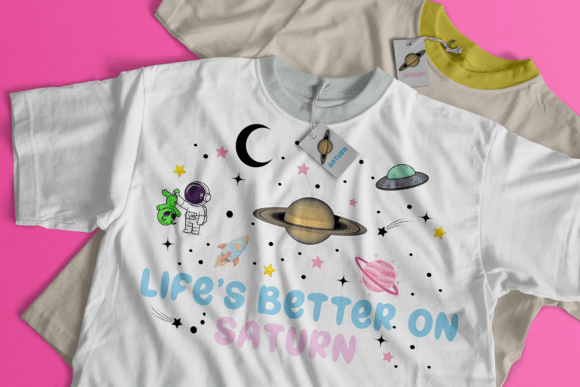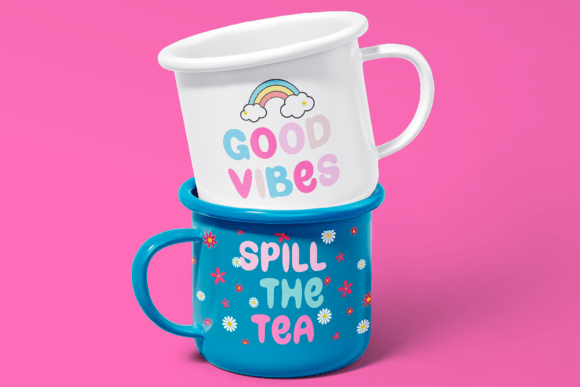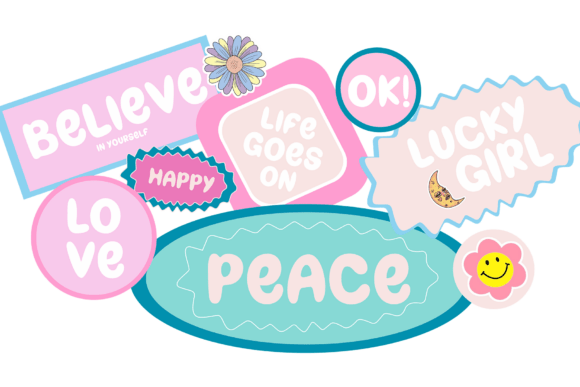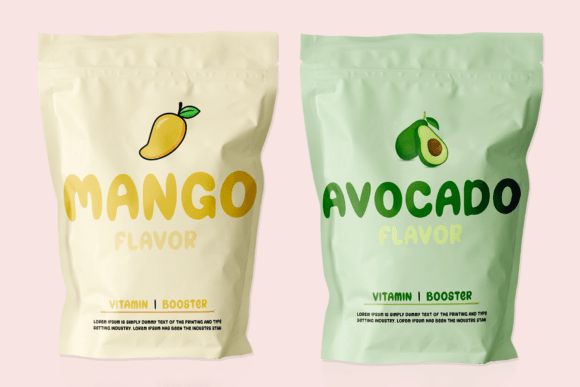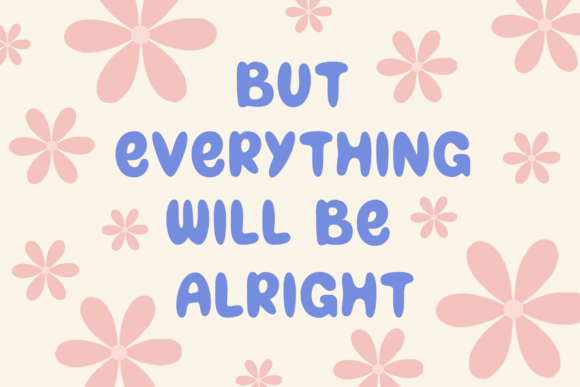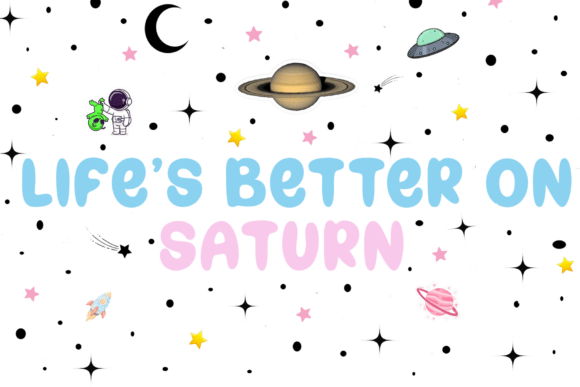
Bear Gummy Font: The Playful and Youthful Display Font
Are you looking for a font that radiates joy and youthful energy? Look no further than the Bear Gummy font! This delightful and high-impact fluffy display font is perfect for designers and crafters who want to add a playful touch to their projects. In this article, we’ll explore the features and benefits of the Bear Gummy font and how it can elevate your designs.
What is Bear Gummy Font?
Bear Gummy is a display font that mimics the playful and squishy nature of gummy candies. Its extra-thick, chunky letterforms and soft, bulbous terminals give it a smooth, organic flow with a cheerful “bubble” aesthetic. This font is perfect for designs that require a fun and approachable feel.
Key Features of Bear Gummy Font
- Uppercase and Lowercase Letters: The Bear Gummy font features both uppercase and lowercase letters, making it versatile for various design projects.
- Numerals and Functional Characters: The font includes numerals and functional characters, ensuring that you have everything you need to create professional-looking designs.
- Multilingual Support: Bear Gummy font supports multiple languages, making it a great choice for designers who work with international clients.
Use Cases for Bear Gummy Font
The Bear Gummy font is perfect for a wide range of design projects, including:
- Books and Magazines: Add a playful touch to your book or magazine covers with the Bear Gummy font.
- Logo and Branding: Create a fun and memorable brand identity with the Bear Gummy font.
- Photography: Use the Bear Gummy font to add a cheerful touch to your photo captions or quotes.
- Blog Headers: Make your blog stand out with a playful header using the Bear Gummy font.
- Posters and Advertisements: Grab attention with a bold and playful poster or advertisement featuring the Bear Gummy font.
Benefits of Using Bear Gummy Font
The Bear Gummy font offers several benefits to designers and crafters, including:
- Unique and Playful Design: The Bear Gummy font adds a touch of whimsy and fun to your designs.
- High-Impact Visibility: The font’s extra-thick letterforms ensure high visibility and impact.
- Time-Saving: The Bear Gummy font’s comprehensive character set saves you time and effort in creating custom designs.
Tips for Using Bear Gummy Font
Here are some tips for using the Bear Gummy font effectively:
- Pair with Simple Backgrounds: Pair the Bear Gummy font with simple backgrounds to make it stand out.
- Use for Headlines: Use the Bear Gummy font for headlines and titles to grab attention.
The Bear Gummy font is a delightful and high-impact display font that adds a playful touch to your designs. With its unique and playful design, high-impact visibility, versatility, and time-saving features, it’s perfect for designers and crafters who want to create fun and engaging designs. Whether you’re working on a book, magazine, logo, or advertisement, the Bear Gummy font is sure to bring a smile to your audience’s faces.